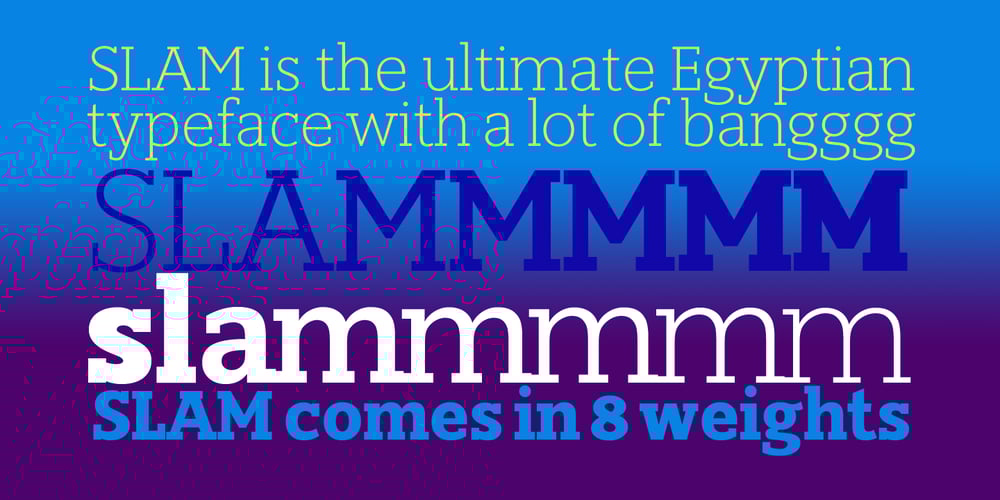
Slam Normal Font Family was designed by Gert Wiescher and published by Wiescher Design. Slam Normal contains 16 styles and family package options. »SLAM« is my new, very sturdy but elegant slab-serif font family. I designed this font family with body copy in mind and gave it all the glyphs necessary for use with all latin writing languages. I also gave the fonts all kinds of different numerals as well as a complete set of small caps and overall extensive kerning. It comes in eight normal weights with corresponding oblique cuts and it comes in a rounded version and corresponding obliques as well. Enjoy this original font, it is a real work horse!